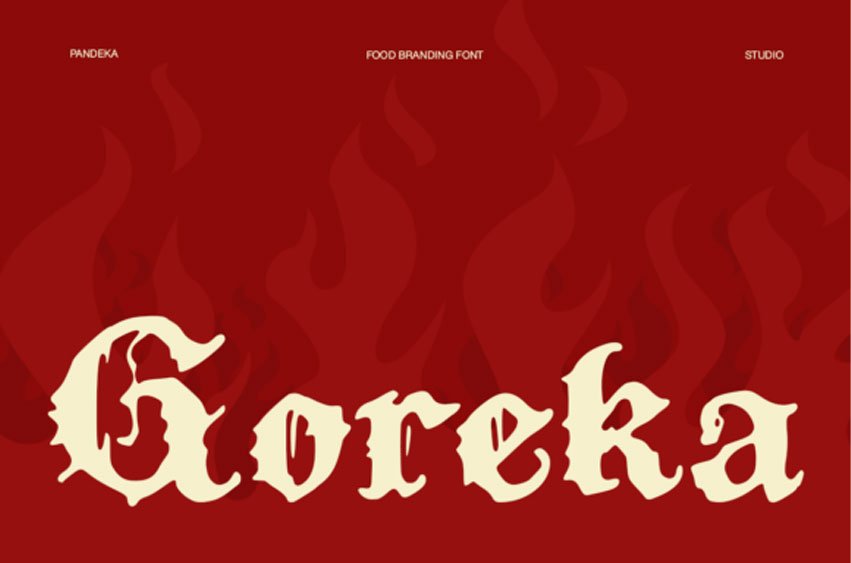
Goreka Font
Goreka Font is a bold gothic-style display font designed to add a fiery, daring, and flavorful touch to your food branding. With sharp details and a strong medieval aesthetic, this font captures the spirit of spice, heat, and intensity — perfect for restaurant logos, packaging, posters, and food product labels that need to stand out with power and attitude.
Whether you’re creating a logo for a spicy fried chicken brand, a hot sauce label, or a bold headline for food promotions, Goreka brings that extra kick of energy and character to your design.